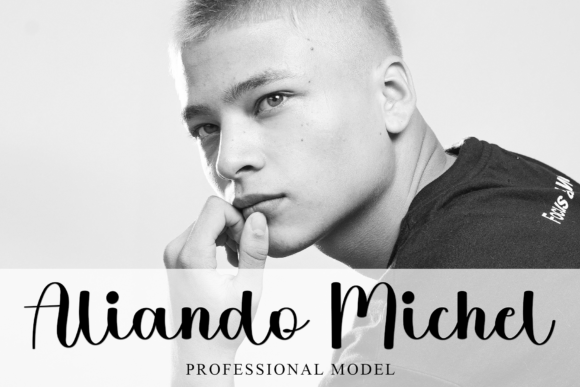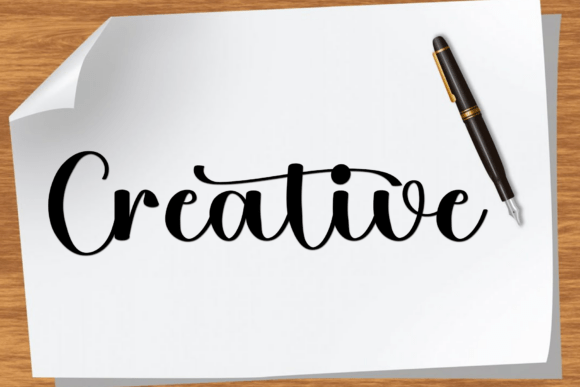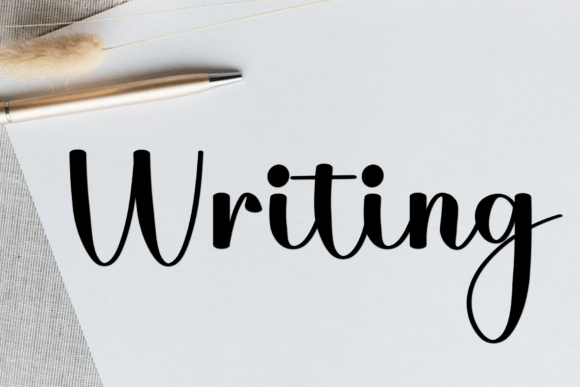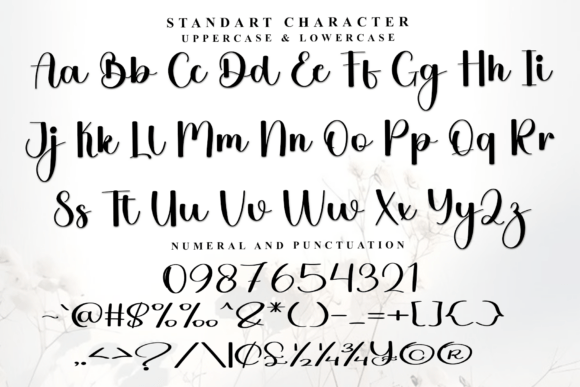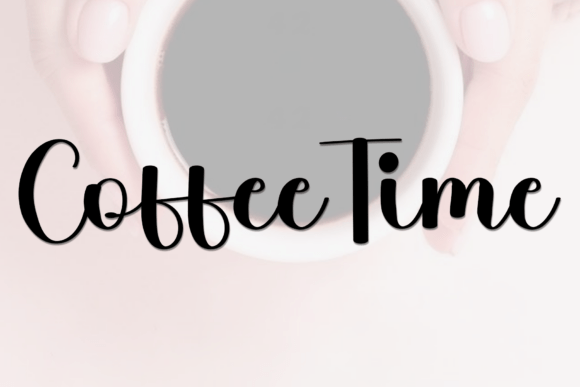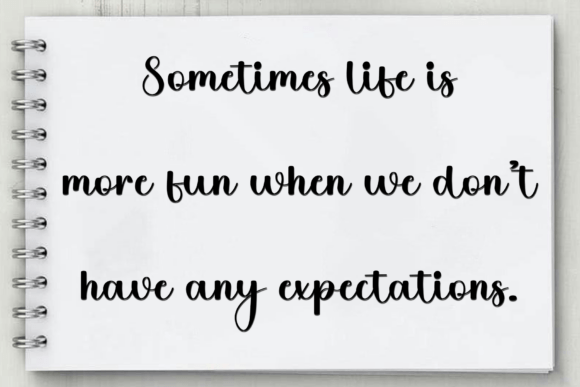
Introducing Autumn Signature Font: Elevate Your Designs with a Touch of Elegance
Are you a designer, crafter, or creative looking for a font that adds a unique touch to your projects? Look no further than the Autumn Signature Font. This beautiful and eye-catching font is designed with a soft, distinctive style that is sure to make your designs stand out. With its versatile and meaningful character, Autumn Signature Font is the perfect addition to your creative toolkit.
What Sets Autumn Signature Font Apart
Autumn Signature Font boasts distinctive strokes that give it a special character, making it a cut above the rest. Its unique design ensures that your projects will have a one-of-a-kind look that captures the attention of your audience. Whether you’re working on a design project, craft, or other creative work, this font is sure to add a touch of elegance and sophistication.
Endless Possibilities with Autumn Signature Font
One of the best things about Autumn Signature Font is its versatility. With a wide range of characters, you can use it to create a variety of designs, from simple and elegant to complex and intricate. The font is perfect for:
- Design projects: Add a touch of sophistication to your brochures, posters, and flyers.
- Crafts: Use Autumn Signature Font to create beautiful handmade cards, gift tags, and scrapbook pages.
- Digital products: Enhance your e-books, presentations, and social media graphics with this stunning font.
The Benefits of Using Autumn Signature Font
So why choose Autumn Signature Font for your designs? Here are just a few benefits:
- Unique and eye-catching: Stand out from the crowd with a font that adds a touch of elegance to your designs.
- Versatile: Use Autumn Signature Font across a range of projects, from digital to print.
- Meaningful: Add depth and significance to your designs with a font that tells a story.
Tips for Getting the Most Out of Autumn Signature Font
To make the most of Autumn Signature Font, try the following:
- Experiment with different sizes and colors: Find the perfect combination to make your designs pop.
- Pair with other fonts: Create interesting and dynamic text combinations by pairing Autumn Signature Font with other fonts.
- Use in combination with images: Add an extra layer of depth to your designs by combining Autumn Signature Font with high-quality images.